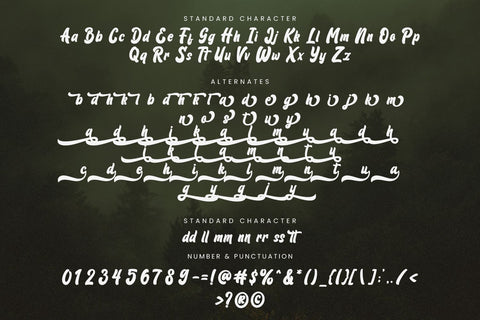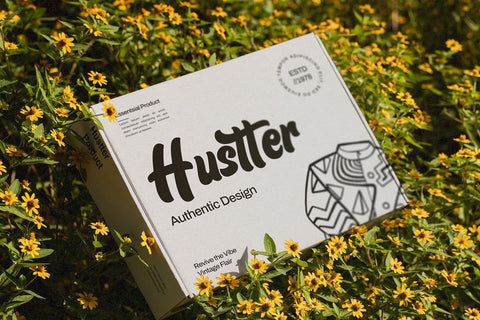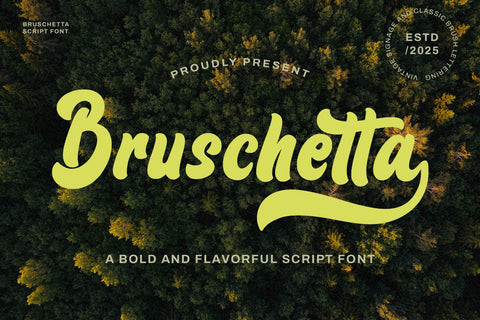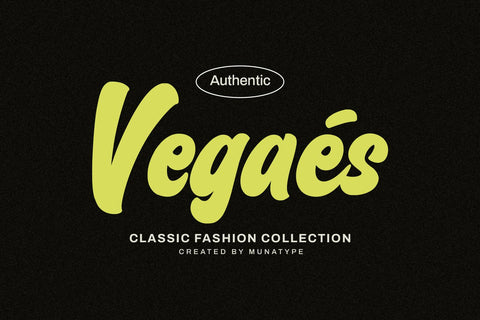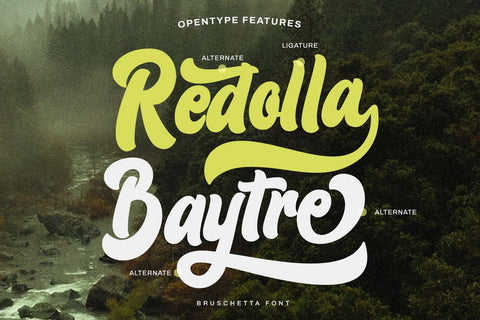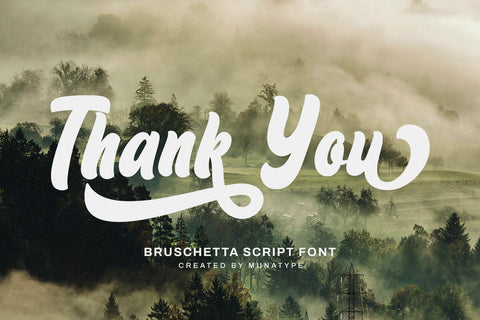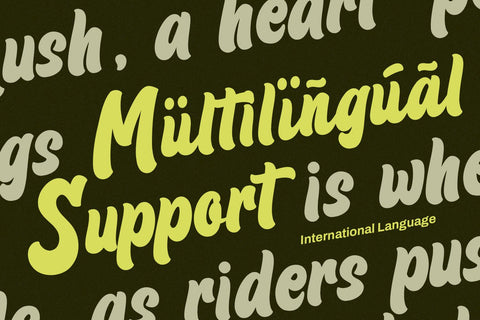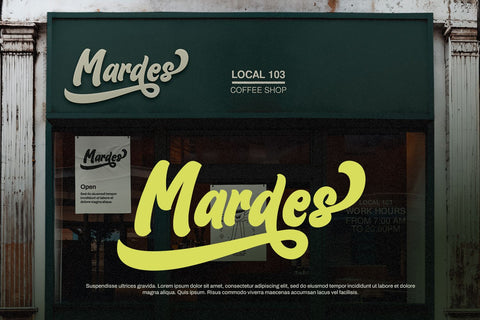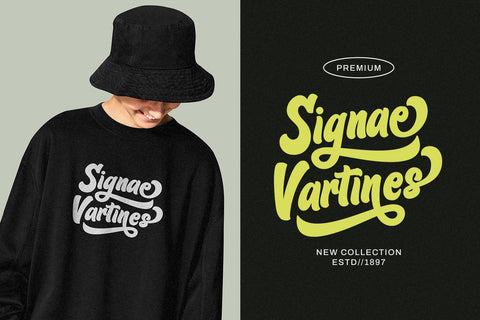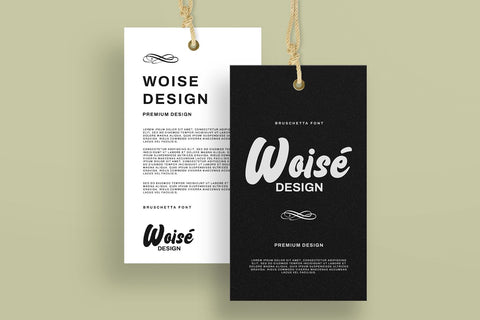
Bruschetta - Retro Script Font
Bruschetta is a bold script handwritten font that blends vintage charm with a retro flair. Its strong strokes and fluid curves bring a sense of character and personality to any design, while maintaining a handcrafted feel. Perfectly balanced between elegance and boldness, this font captures attention and adds an authentic, timeless touch to your creative work.
Designed with versatility in mind, Bruschetta shines across seasonal and festive themes, from Christmas and New Year to Easter, Winter, and Thanksgiving. Its dynamic presence makes it ideal for signature-style branding, retro-inspired packaging, decorative crafts, embroidery projects, and festive greeting cards. The bold script form ensures it stands out while still feeling warm and inviting.
Featuring a variety of alternate characters and stylish swashes, Bruschetta offers endless customization possibilities. These decorative flourishes allow you to enhance your typography with graceful, flowing accents—perfect for crafting unique wordmarks, personalized gifts, or elegant event invitations. The font’s layered personality ensures it works equally well in modern and nostalgic settings.
Whether you’re designing for a holiday celebration, a retro logo, or a handmade craft project, Bruschetta delivers the perfect balance of strength and style. Bring your designs to life and make every word a statement with this bold and beautiful script font.
- Standard & Multilingual glyphs.
- Alternate glyphs & Unique Ligature.
- Fonts include multilingual support for; Afrikaans, Danish, Dutch, French, German, Indonesian, Irish, Italian, Norwegian, Portuguese, Scottish, Spanish, Swedish, Swiss etc.